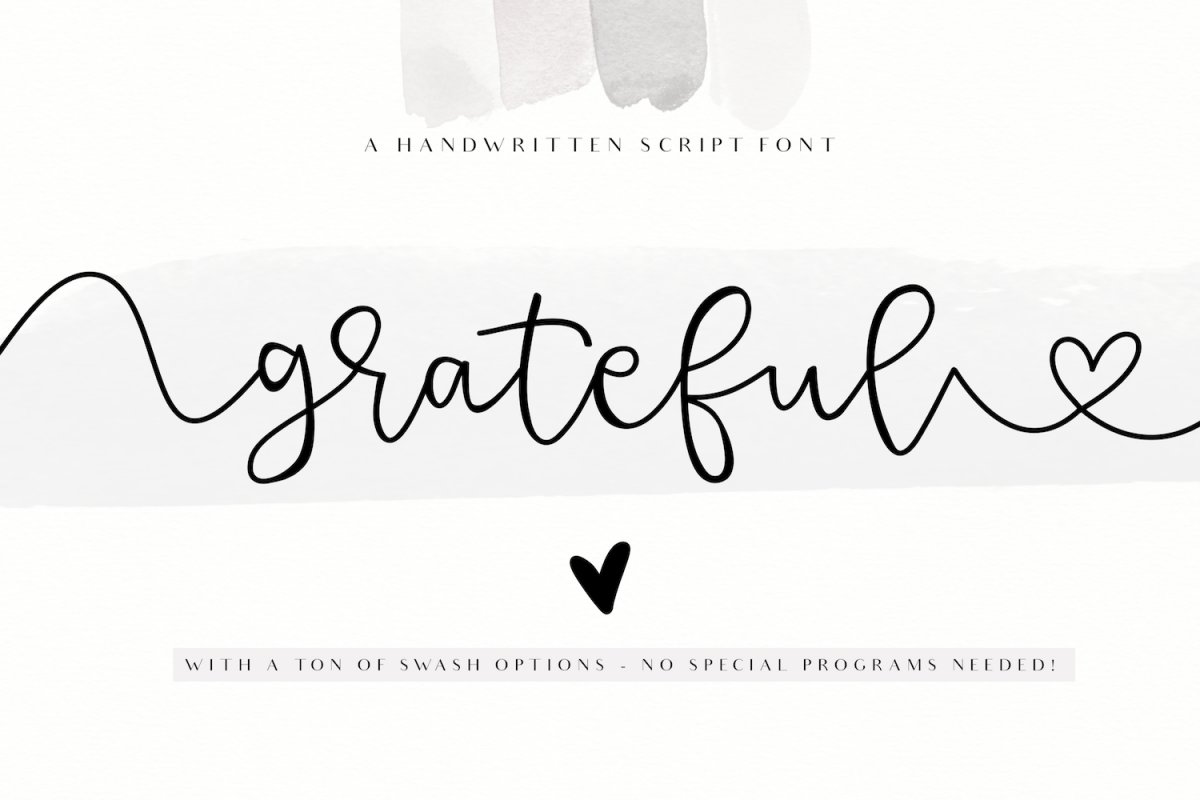
Grateful - Handwritten Script Font
GratefulScript
Grateful is a classy handwritten script font.
It is perfect for quotes, headings, blogs, logos, branding, invitations and more!
This font does not include accent characters.
The capital and lowercase lettering for this font is the same.  There are NO capital characters.
Swashes
The swashes are accessible by using the number keys!  That's it!
No special programs needed.  Simply type a number before and/or after a letter.  A swash will automatically connect for you.  There are so many possibilities for the swashes!  Check out the preview images to see more! :)